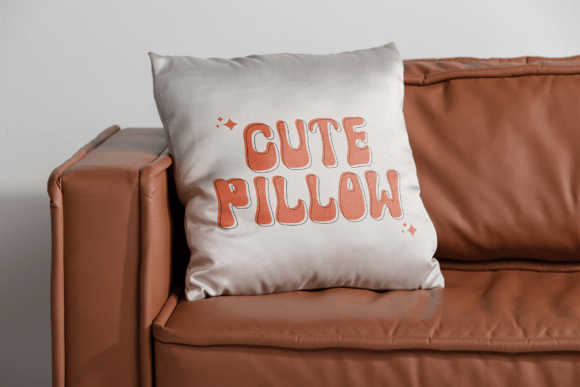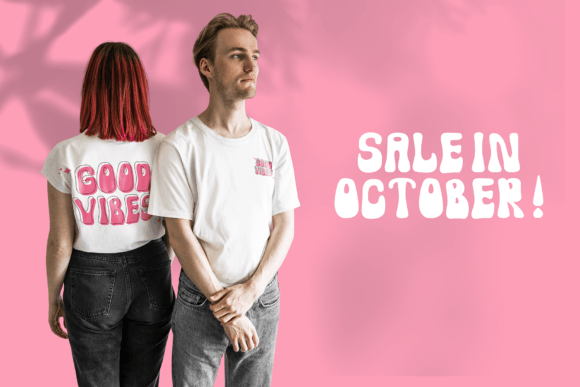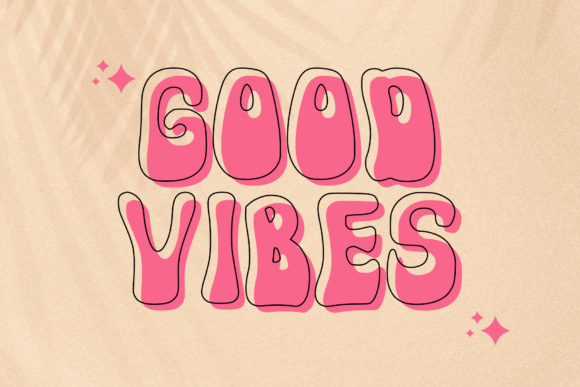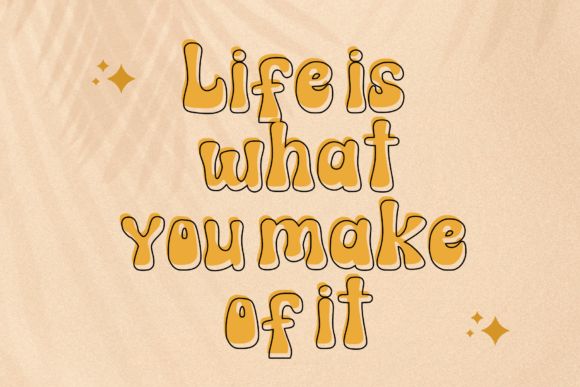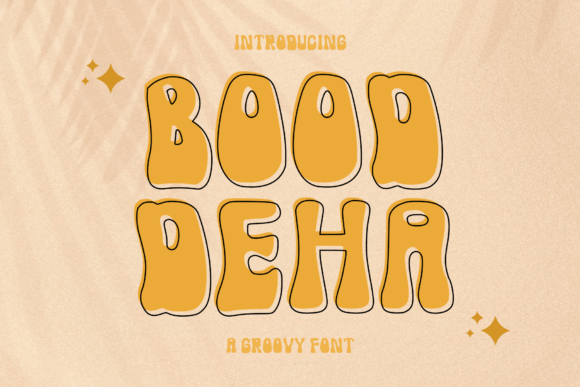
Introducing Bood Deha Font: The Groovy and Charming Display Font for Your Design Needs
Are you a designer or crafter looking for a unique and eye-catching font to elevate your creative projects? Look no further than Bood Deha Font! This groovy and charming display font is designed to add a touch of aesthetic appeal to your designs, making it perfect for a wide range of applications.
What Makes Bood Deha Font So Special?
Bood Deha Font is a carefully crafted typeface that boasts an aesthetic shape, making it an excellent choice for designers and crafters who want to add a personal touch to their work. Its unique design elements and flowing lines make it stand out from other fonts, ensuring that your creations will be noticed.
Whether you’re working on a logo, branding project, or simply want to add some personality to your social media graphics, Bood Deha Font is the perfect choice. Its versatility and charm make it an excellent addition to any design project, allowing you to express your creativity and bring your ideas to life.
Key Features of Bood Deha Font
- Groovy and Charming Design: Bood Deha Font features a unique and captivating design that’s sure to grab attention.
- Aesthetic Shape: The font’s carefully crafted shape makes it perfect for a wide range of design applications.
- Versatile: Bood Deha Font can be used for various design projects, from logos and branding to social media graphics and more.
- Easy to Read: Despite its unique design, Bood Deha Font remains easy to read, making it perfect for body text and headings.
Here are a few ideas to get you started:
- Logos and Branding: Use Bood Deha Font to create a unique and memorable logo for your business or brand.
- Social Media Graphics: Add a touch of personality to your social media graphics, such as Facebook posts, Instagram stories, and Twitter headers.
- Planners and Journals: Use Bood Deha Font to add a decorative touch to your planners, journals, and other paper crafts.
- Web Design: Use Bood Deha Font to create eye-catching headings and titles for your website or blog.
Tips for Getting the Most Out of Bood Deha Font
To get the most out of Bood Deha Font, here are a few tips to keep in mind:
- Experiment with Different Sizes: Bood Deha Font looks great in a variety of sizes, so don’t be afraid to experiment to find the perfect fit for your design.
- Pair it with Other Fonts: Bood Deha Font pairs well with a range of other fonts, so try combining it with different typefaces to create a unique look.
- Use it for Headings and Titles: Bood Deha Font is perfect for headings and titles, so use it to add a touch of personality to your designs.
Bood Deha Font is a groovy and charming display font that’s perfect for designers and crafters looking to add a touch of personality to their work. With its aesthetic shape, versatility, and ease of use, it’s an excellent choice for a wide range of design applications.